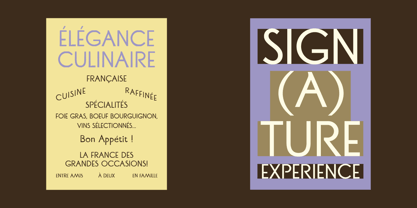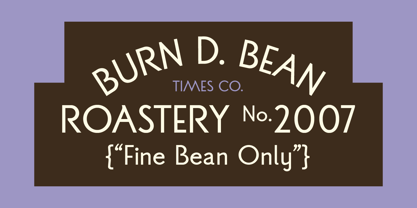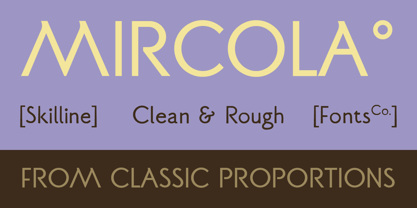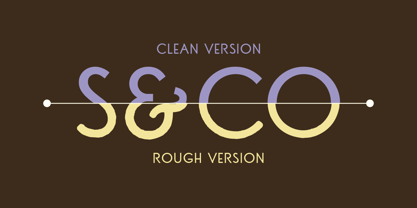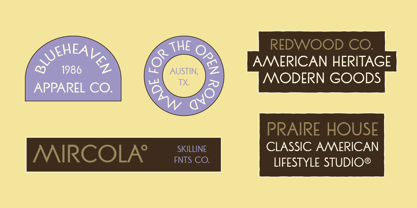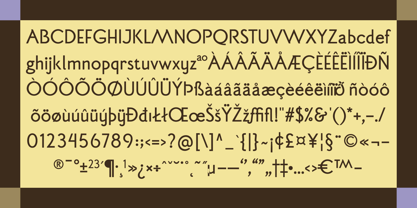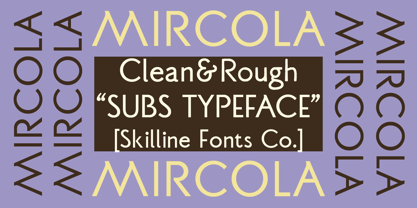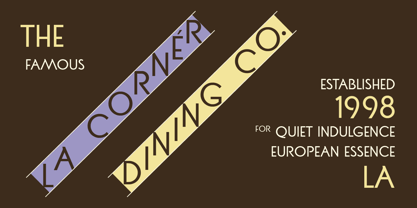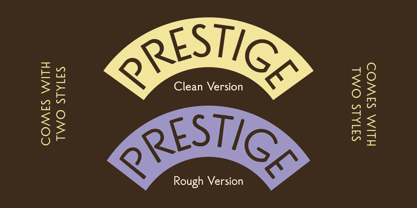
SFC Mircola
Die Schriftfamilie SFC Mircola wurde von Ahmad Nur Alfian entworfen und von Skilline Fonts Co. veröffentlicht. SFC Mircola enthält 2 Stile und Familienpaketoptionen. Mehr über diese Familie
Mircola is a sophisticated heritage sans serif inspired by vintage European signage, classic hospitality typography, and artisan craftsmanship. Combining timeless proportions with subtle handcrafted details, Mircola delivers an elegant visual presence suitable for both contemporary and heritage-focused design projects. Available in Clean and Rough styles, this typeface offers the flexibility to create polished branding systems or authentic vintage-inspired visuals while maintaining excellent readability and professional refinement.
Designer: Ahmad Nur Alfian
Foundry: Skilline Fonts Co.